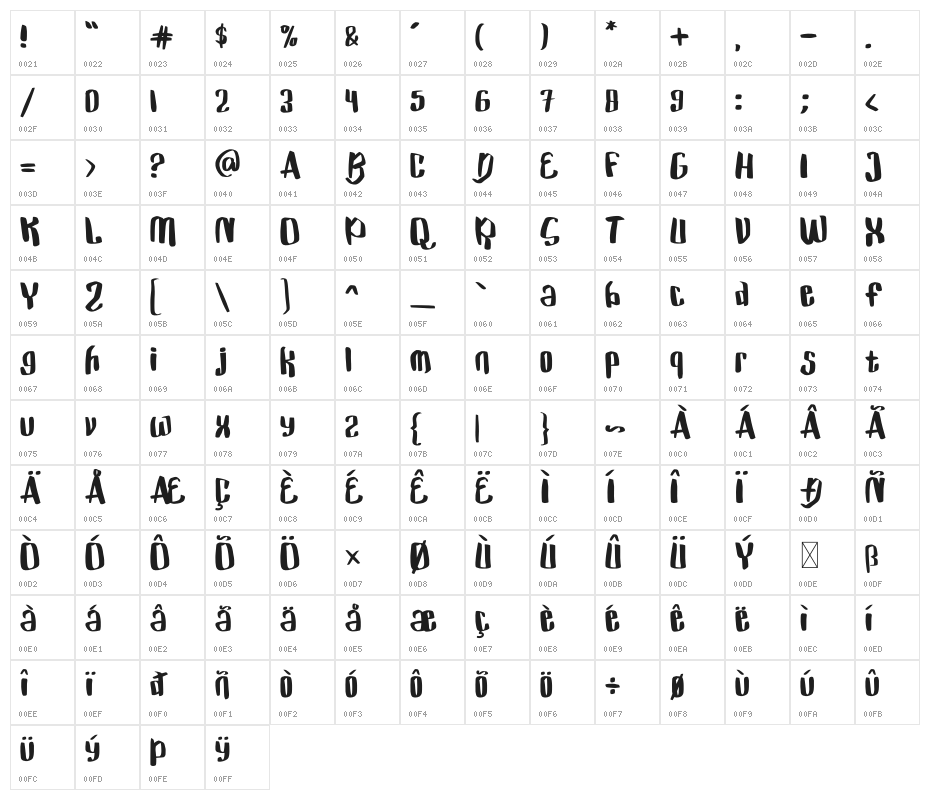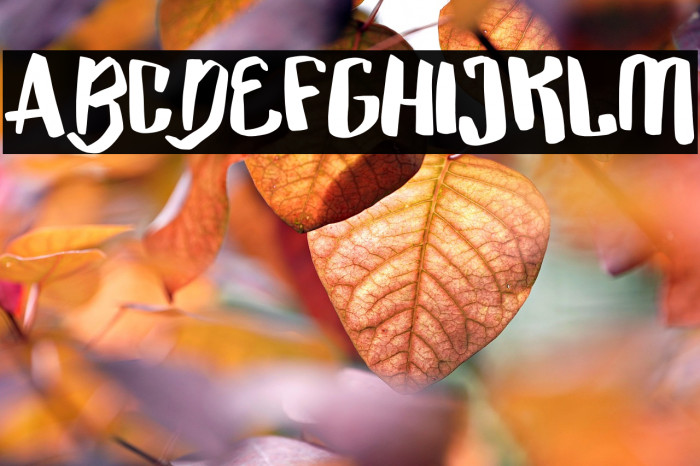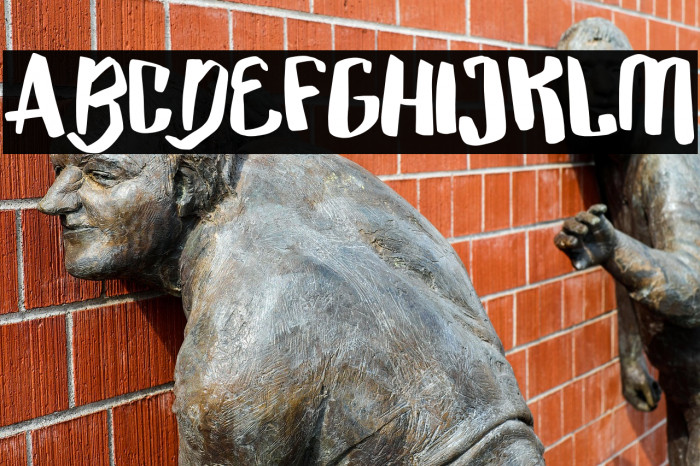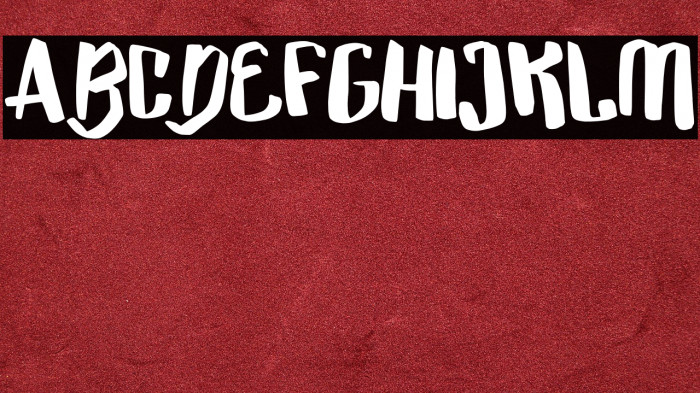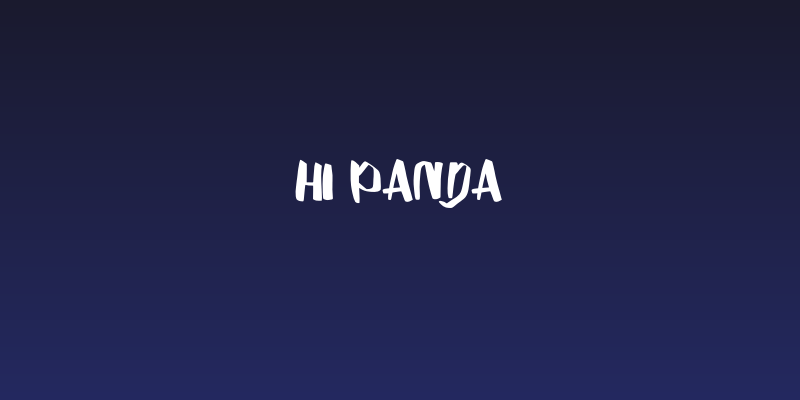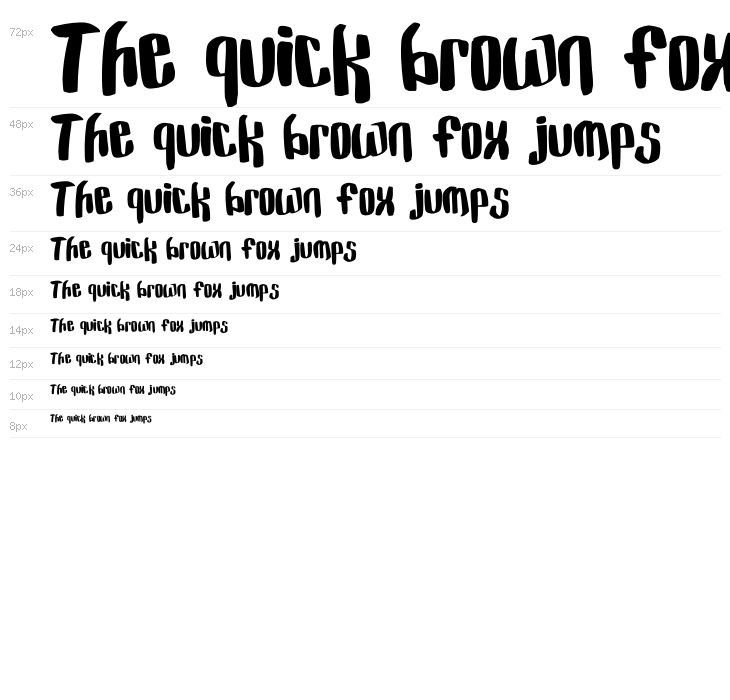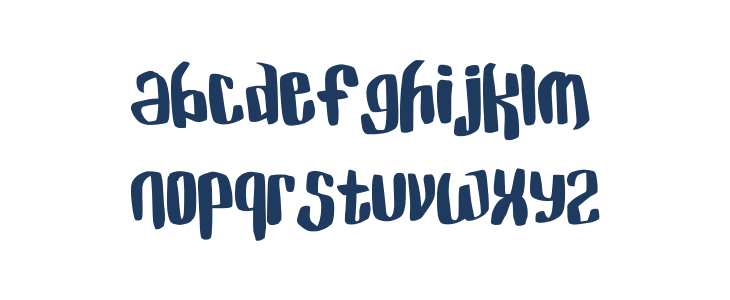
Hi Panda Font
Hi Panda Description
This font features a bold and playful design with a strong presence. The letters are characterized by thick, rounded strokes and a slightly irregular shape, giving it a hand-drawn, whimsical feel. The uppercase and lowercase letters maintain a consistent style, with the lowercase letters slightly more compact. Numbers and special characters follow the same bold and playful theme, making the font suitable for creative and informal applications. The overall design is eye-catching and energetic, perfect for projects that require a fun and dynamic visual impact.
| Overall Style | Playful, Whimsical |
| Proposed Projects | Ideal for children's books, playful branding, posters, and creative social media graphics. |